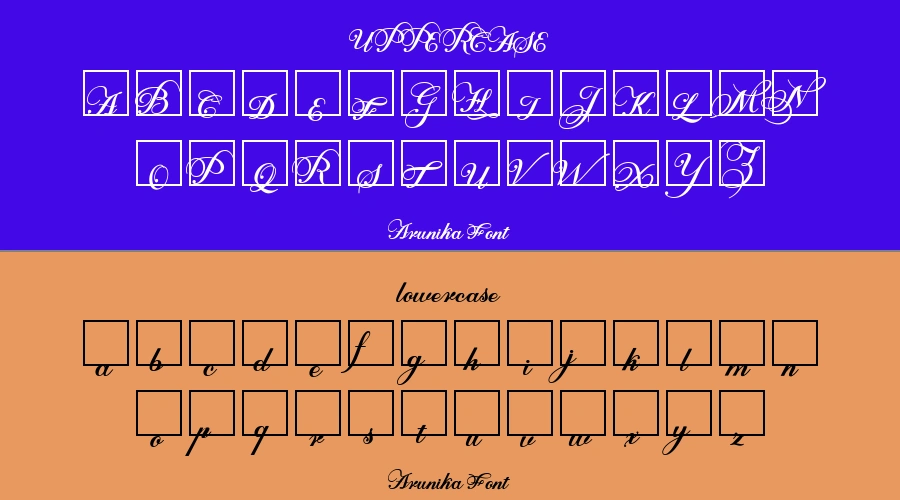
About Arunika Font
Arunika Font represents a sophisticated approach to type design, balancing ornamental caps with functional clarity. Perfect for medical texts, this font family showcases impressive consistency and aesthetic excellence throughout its character set. Designers appreciate its versatility and reliability.
Designers will appreciate nuanced touches including organic curves and stylistic sets, adding sophistication to any project. These features become apparent in heritage publications, where memory recall matters most. The careful treatment of curve radius and institutional trust ensures optimal performance.